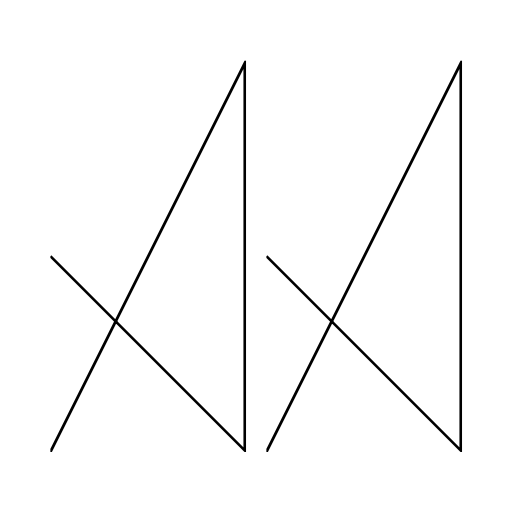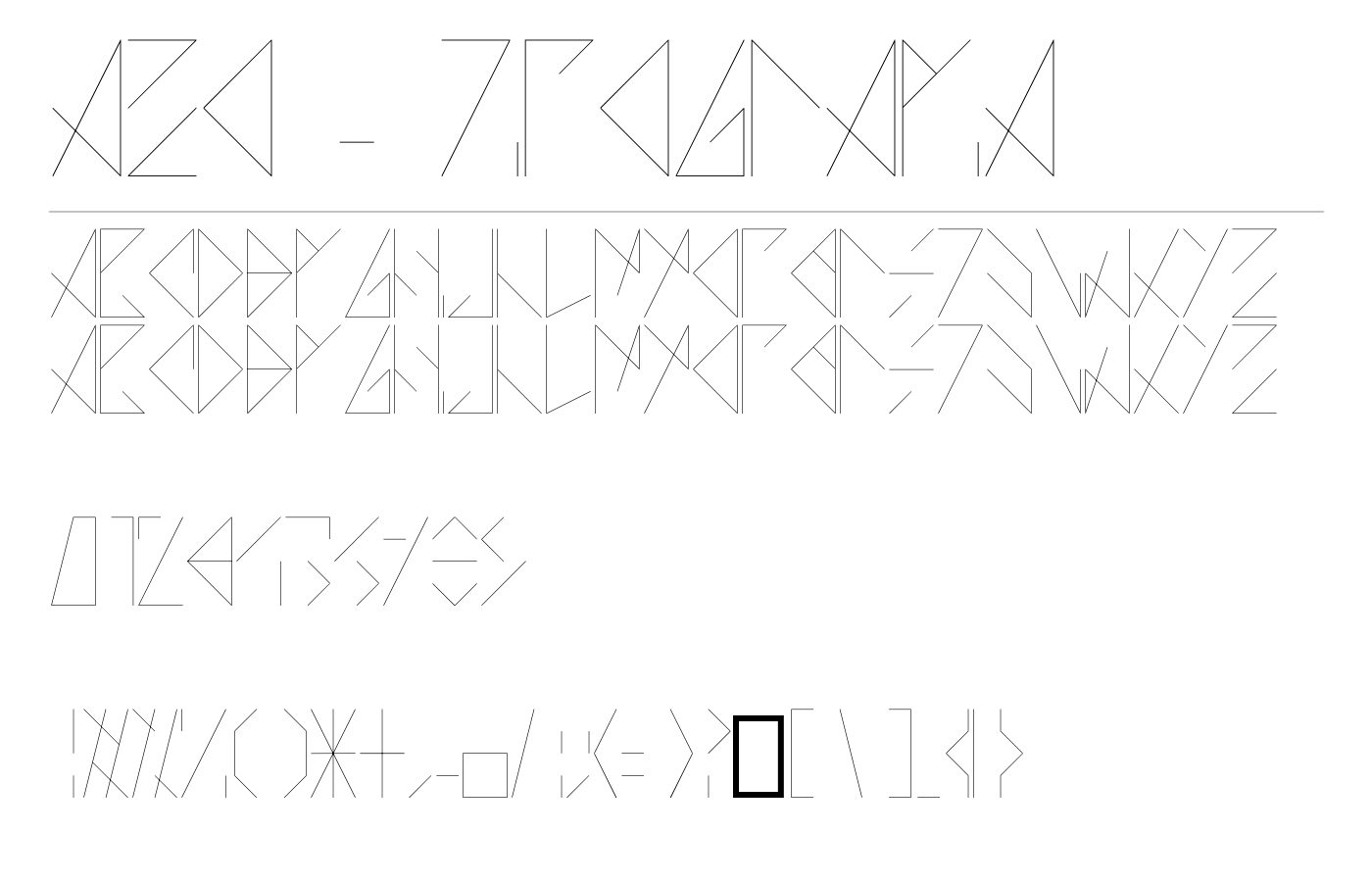
AZO - Tipografia is a highly stylized, ultra-light sans serif font characterized by its thin, geometric lines and angular forms. It has a unique, futuristic look with an open, airy structure that works well for creative and modern design projects such as logos, posters, and editorial headlines where a cutting-edge, minimalistic aesthetic is desired. This font excels at making a bold visual statement while maintaining an elegant simplicity.
AZO - Tipografia Font
About AZO - Tipografia Font